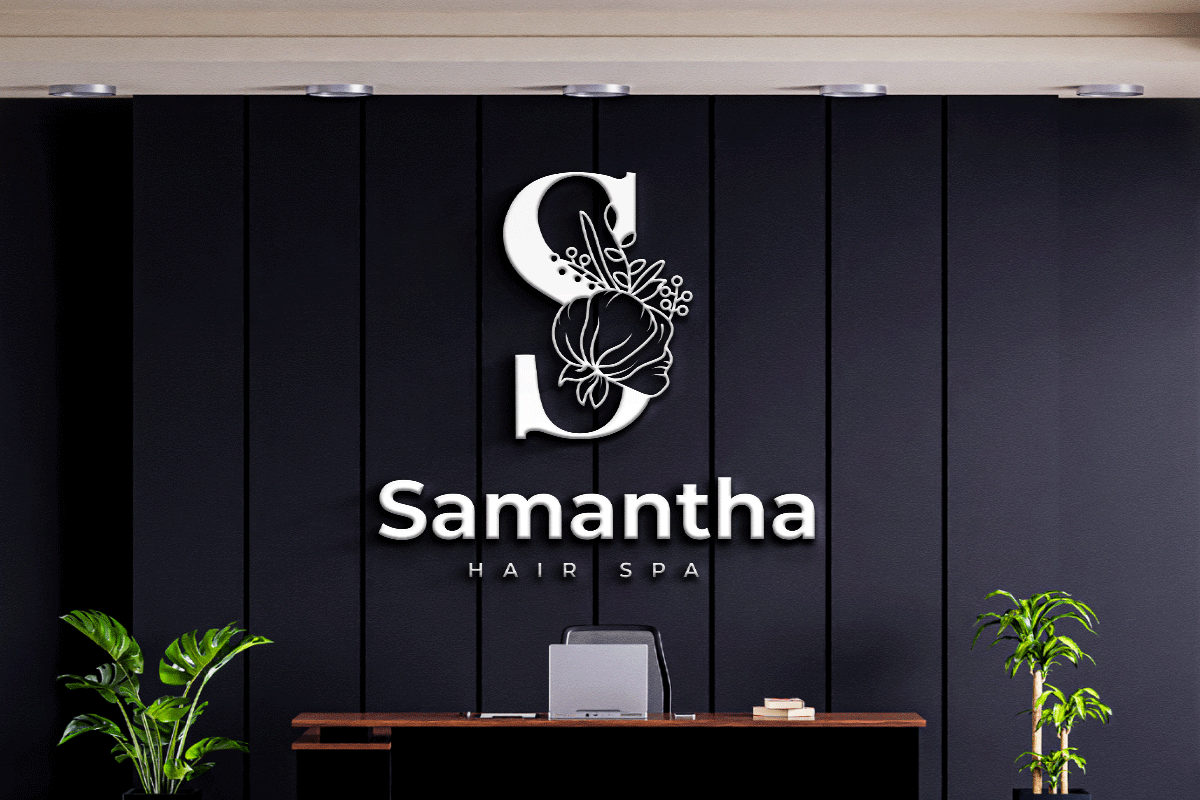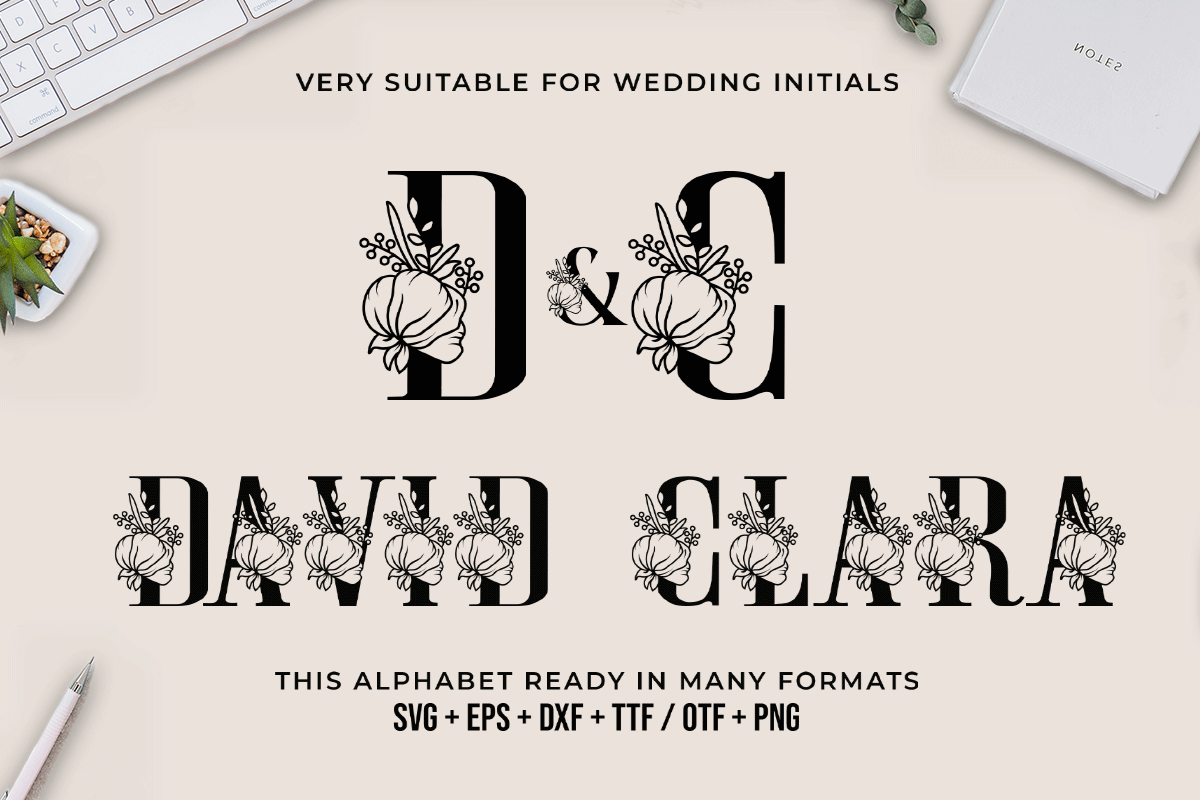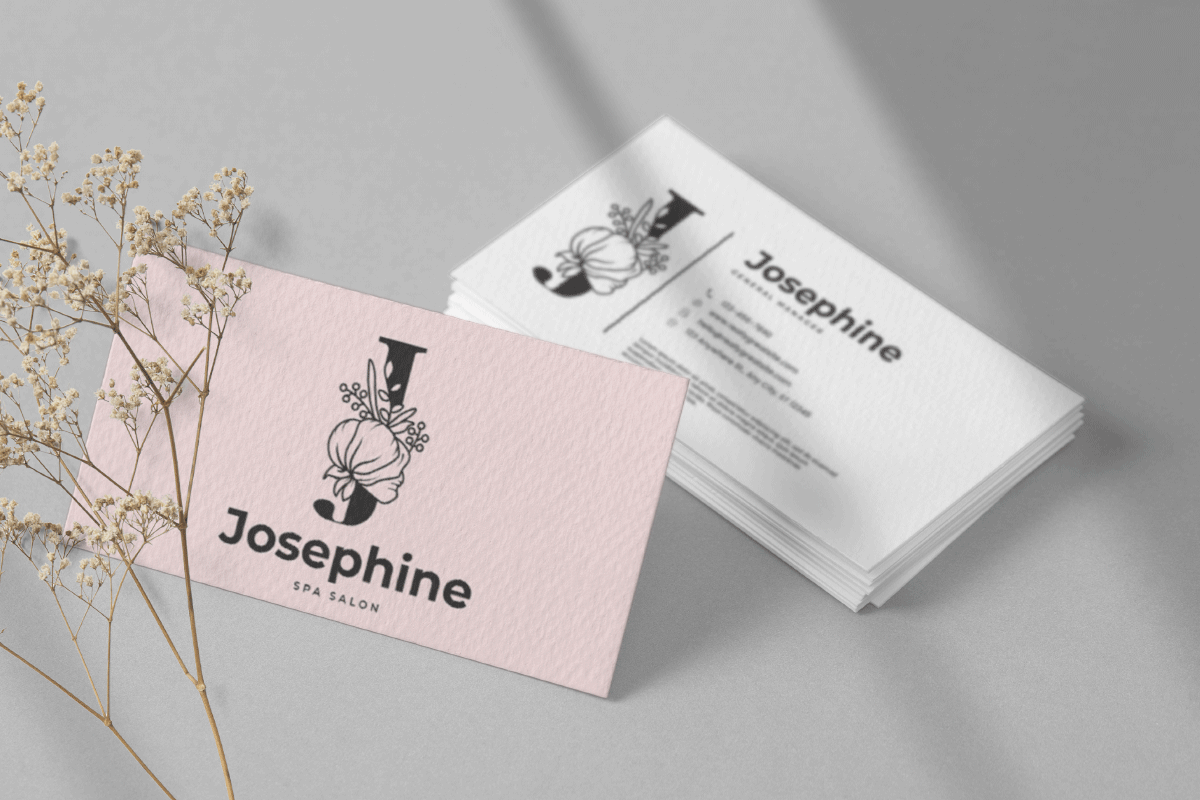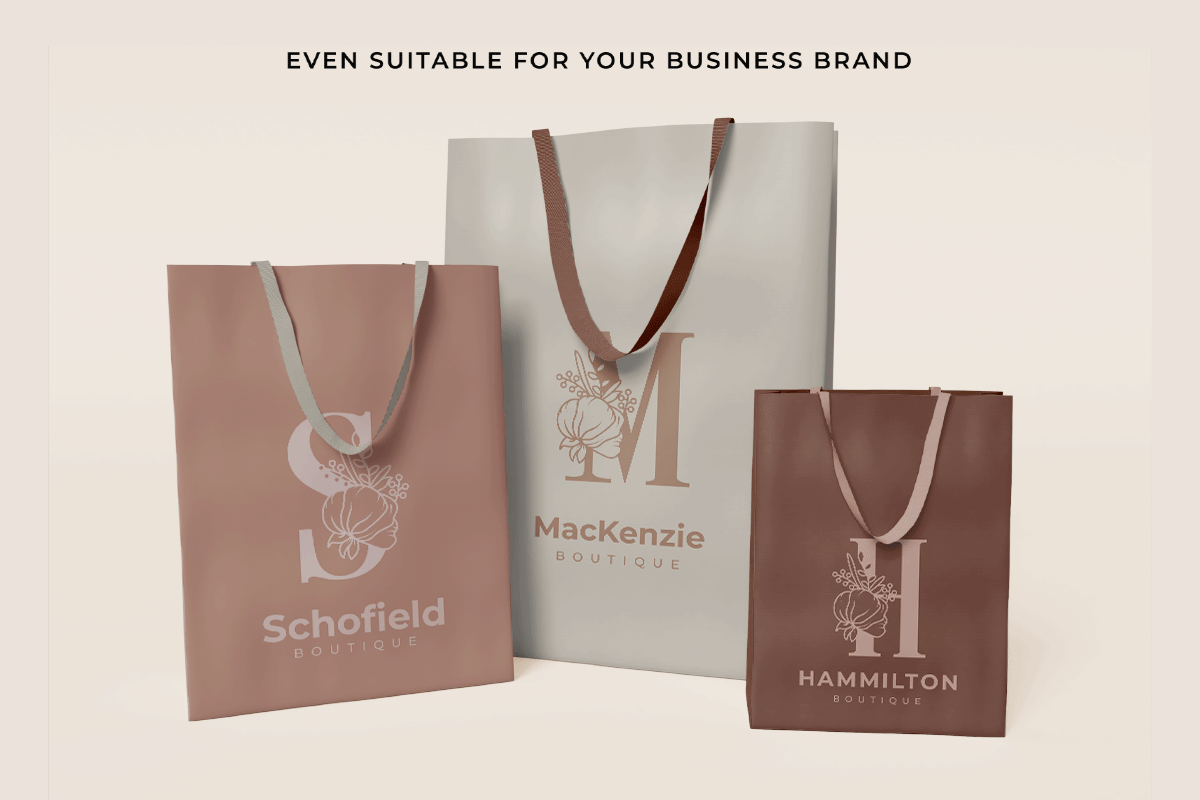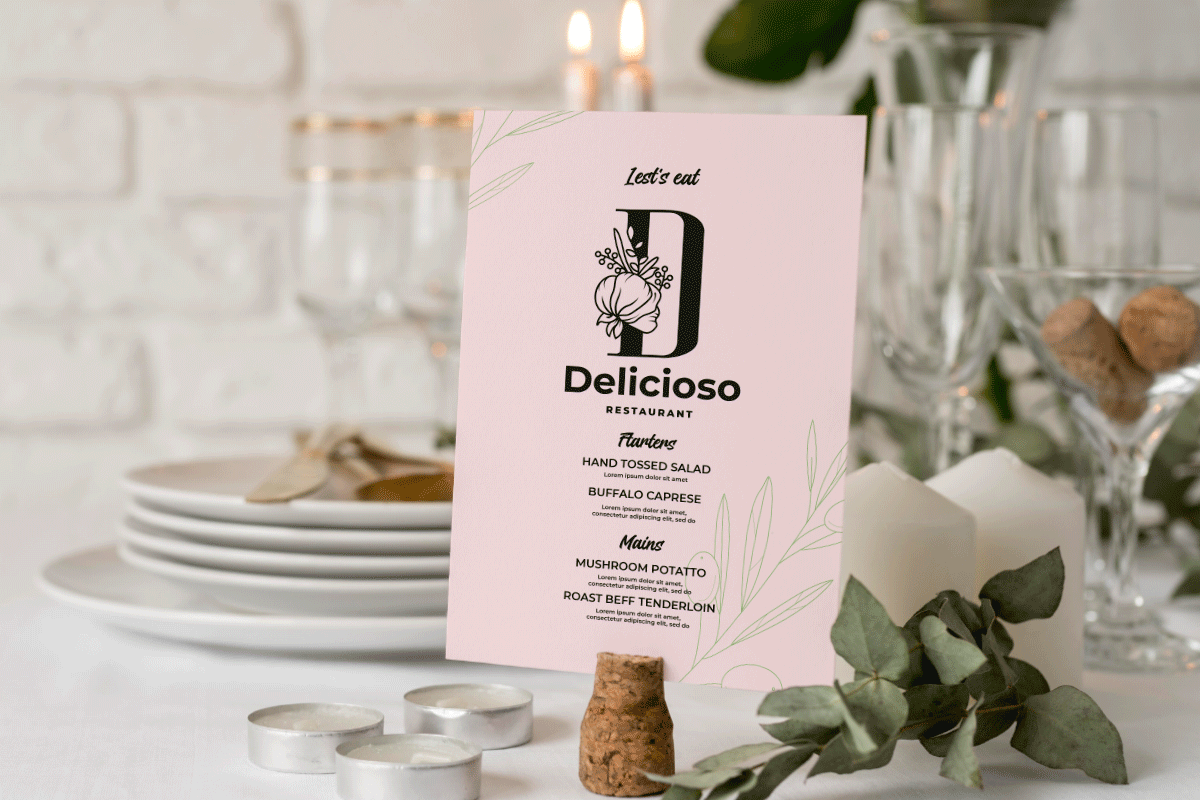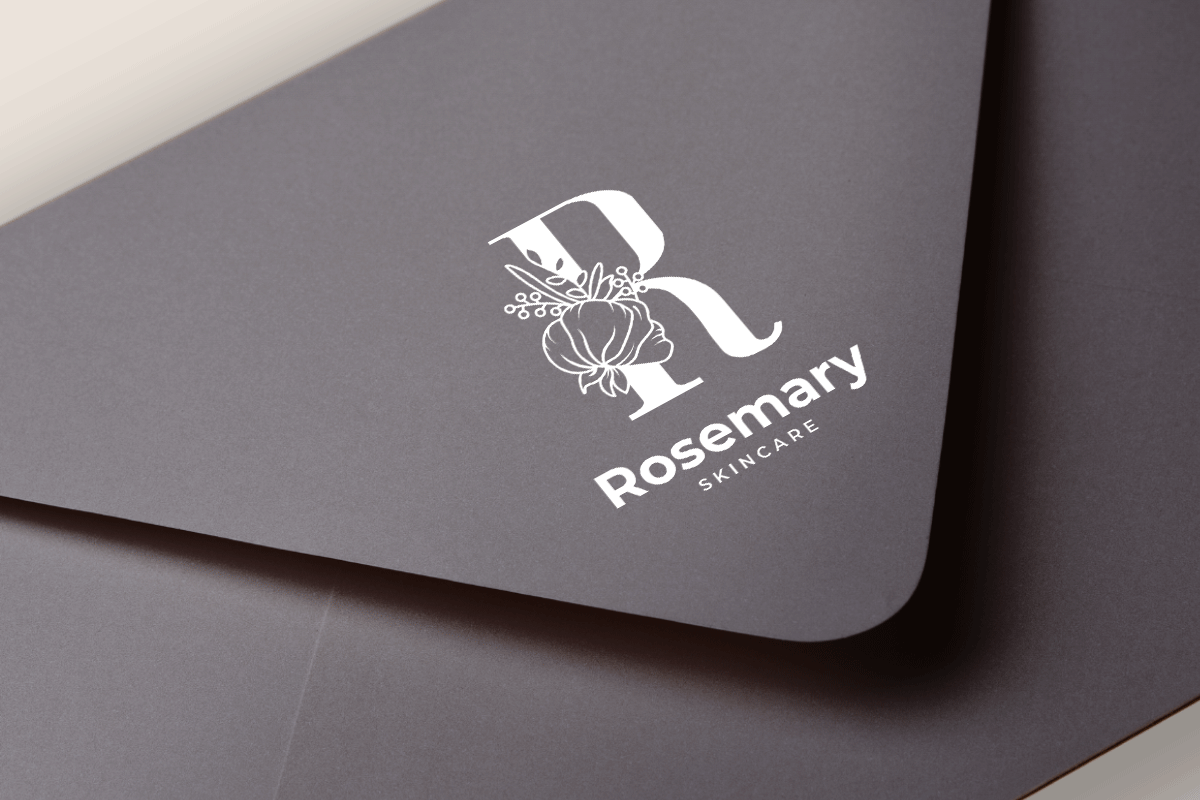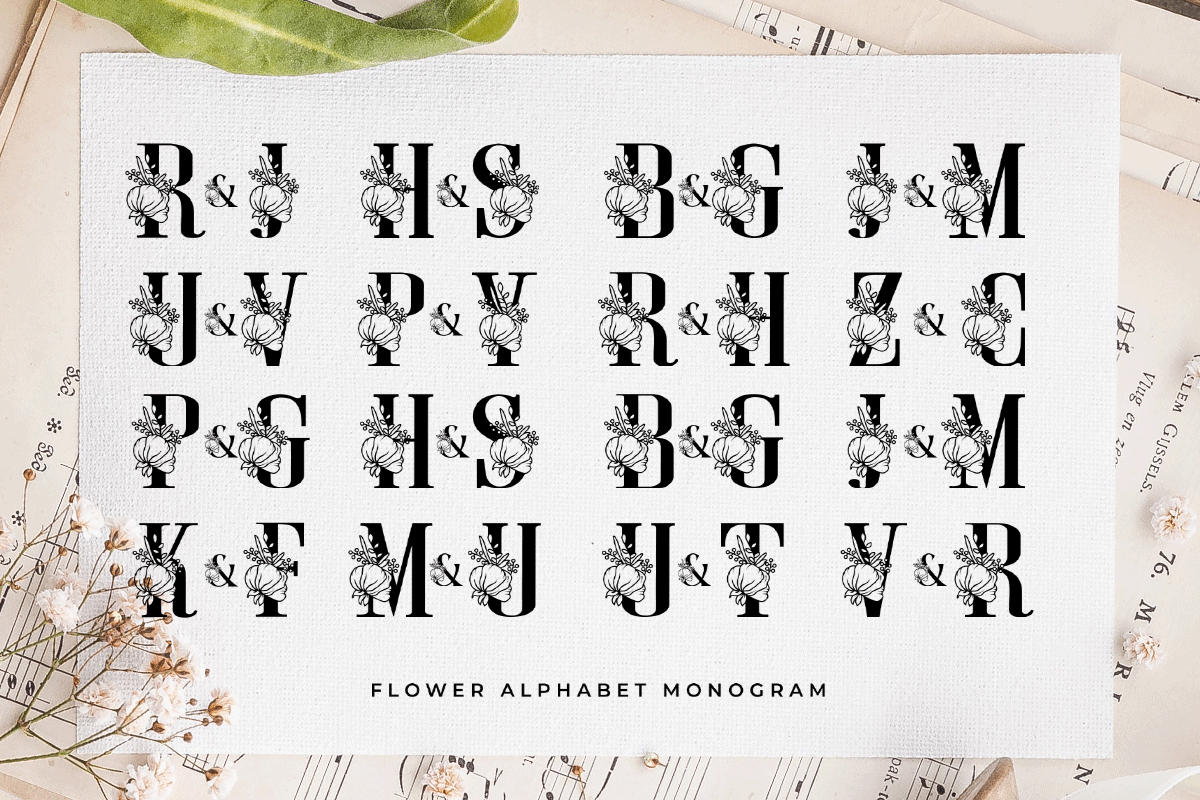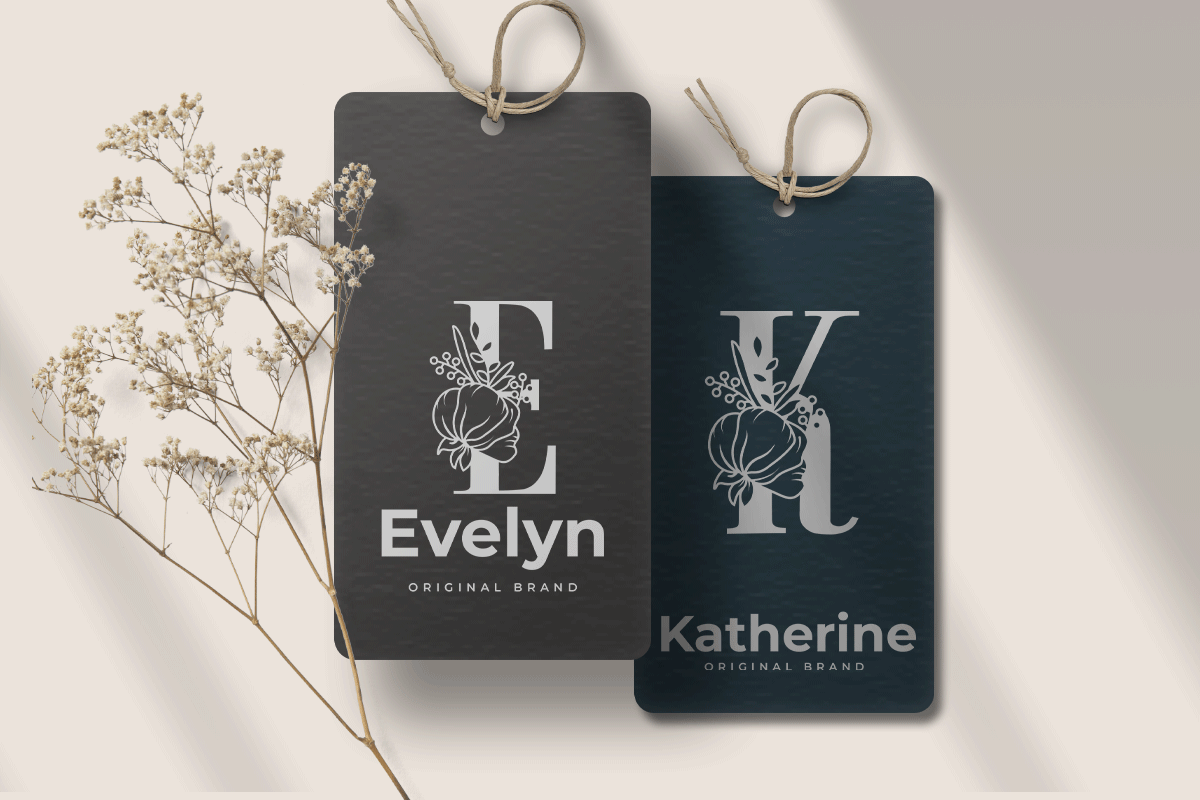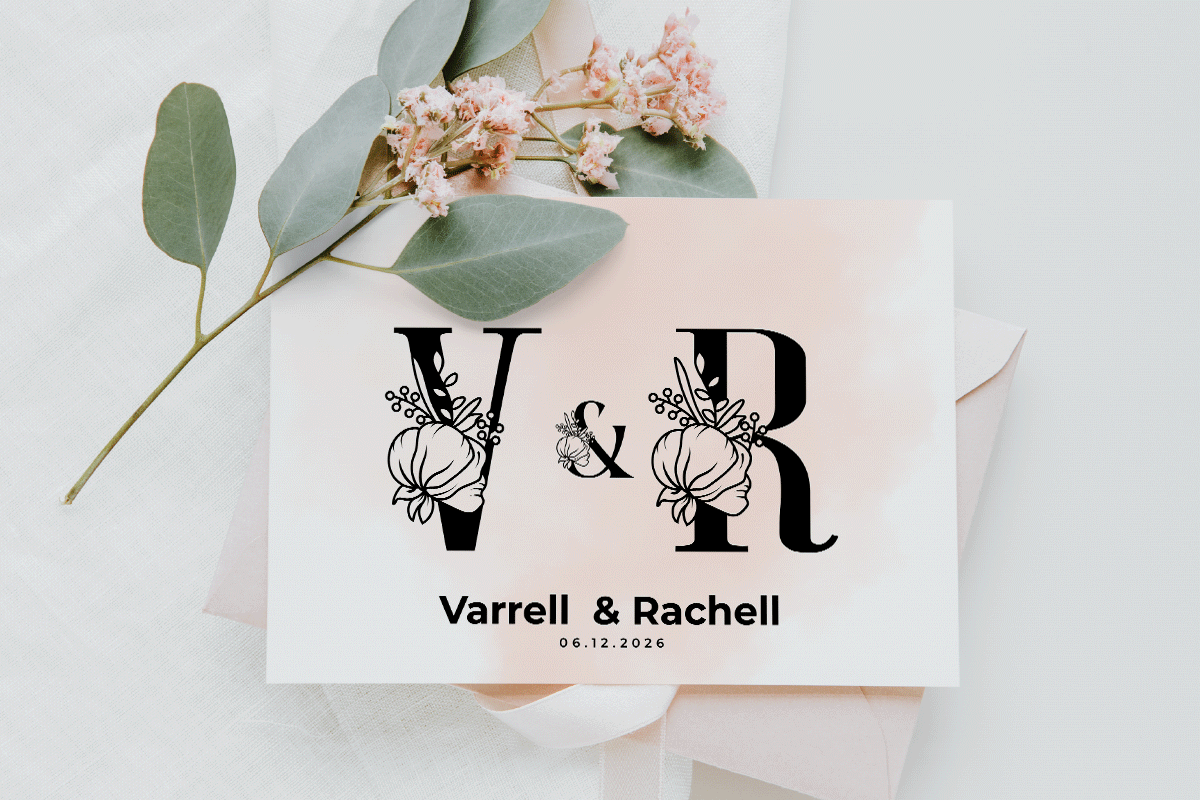
Modern Monogram Flower Alphabet is a typeface that exudes a stylish and elegant impression. Easy to read yet artistic, this font can serve many uses depending on the user. This font is best used largely as it has a medium serif. Modern Monogram Flower Alphabet is a modern and stylish font. This font is part of the decorative font family. Modern Monogram Flower Alphabet can be used as a digital font such as, for promotions on the web and social media, as well as in print forms such as magazines and posters. One product that can be combined with this font is fashion, beauty, and wedding. Magazines that cover fashion and beauty topics can use Modern Monogram Flower Alphabet for their covers. This font can use as branding of a product, such as brand tags and posters. Keeping in mind modern business needs, Modern Monogram Flower Alphabet is also suitable for personal business cards and business signage that denotes a place, such as cafes, boutiques, and make-up shops. Our Decorative fonts collection is compatible for use as; Figma Fonts, Canva Fonts, Freepik Fonts, and Adobe Fonts. They also work as Windows Fonts and Apple Fonts. For your social media needs, you can use and install fonts in our collection of serif fonts to use as Instagram Fonts, Facebook Fonts, and Twitter Fonts.